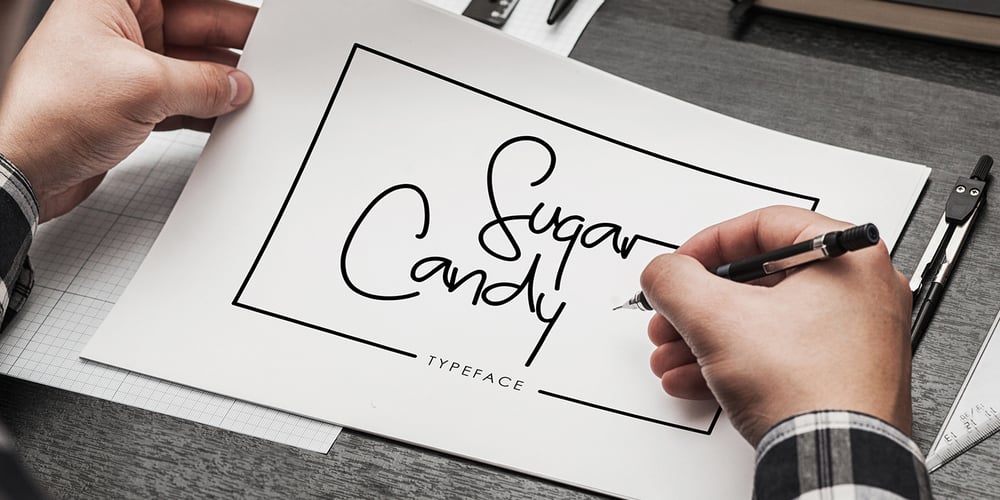
Sugar Candy
Sugar Candy font
Sugar Candy Font Family was designed by Suandana ipandemade and published by madeDeduk. Sugar Candy contains 1 styles and family package options. Sugar Candy is a signature typeface font inspired from classic handwriting style. Suitable to create any branding, product packaging, invitations, quotes, t-shirts, labels, posters and more.Feature UPPERCASE lowercase Number & Symbol International Glyphs Alternative Uppercase Alternative lowercase Ligatures